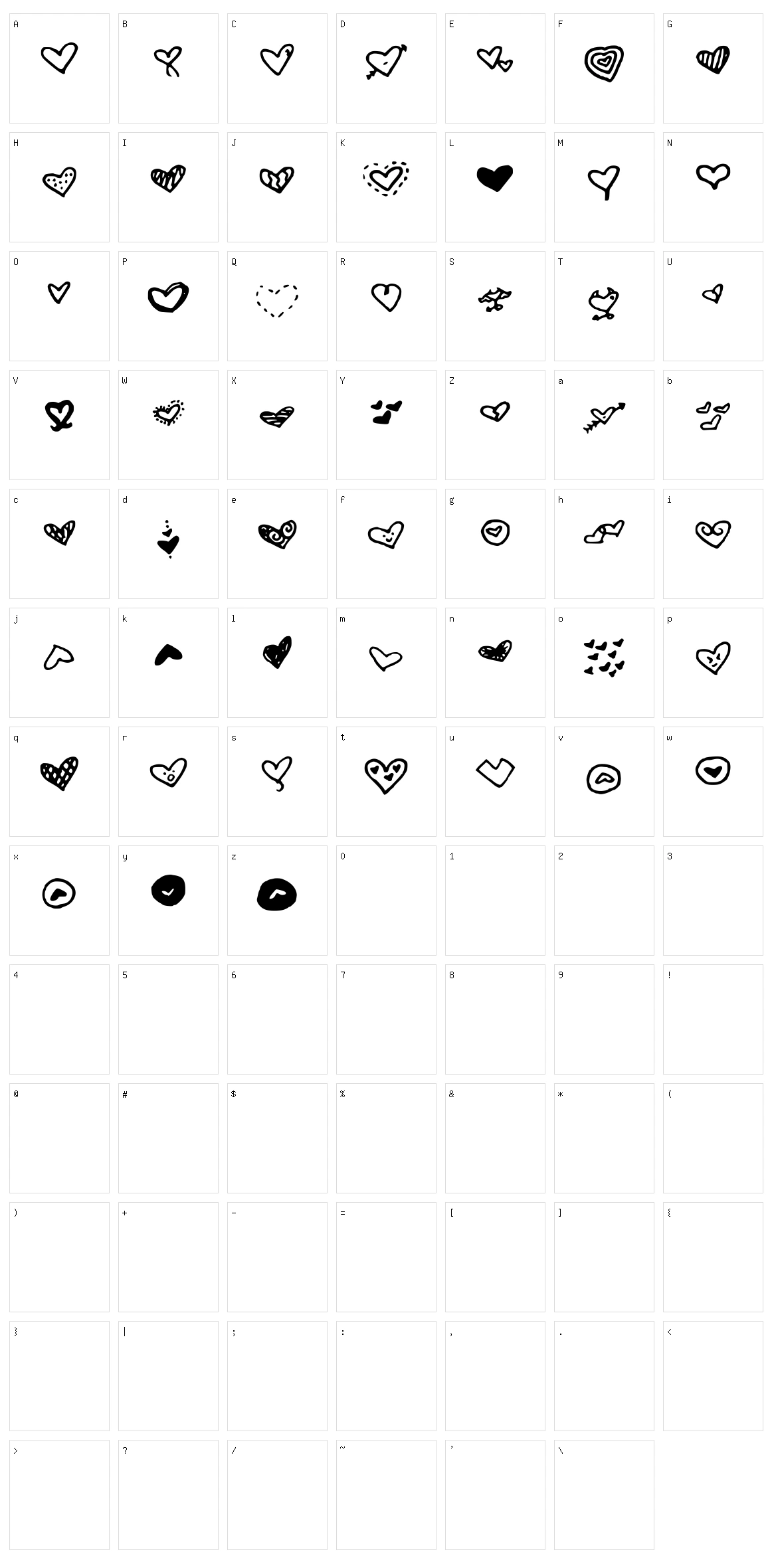
The free font MW Heart is carefully designed by Meaghan Wong, showcasing a thoughtful balance of creativity and usability and falls under the Valentine font style. When you download the ZIP file, it contains only 15.32 KB of font files, making it lightweight and quick to download. Please review the license details below to understand permitted usage and distribution rights. If license information is not available, we recommend using this font for personal projects only or contacting the author directly for commercial usage permissions.